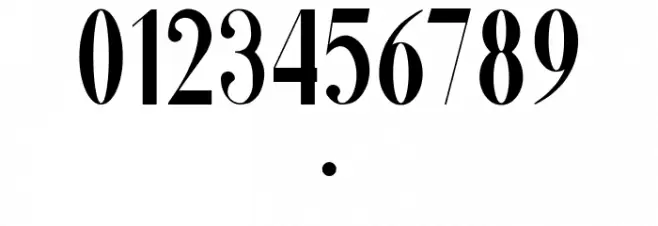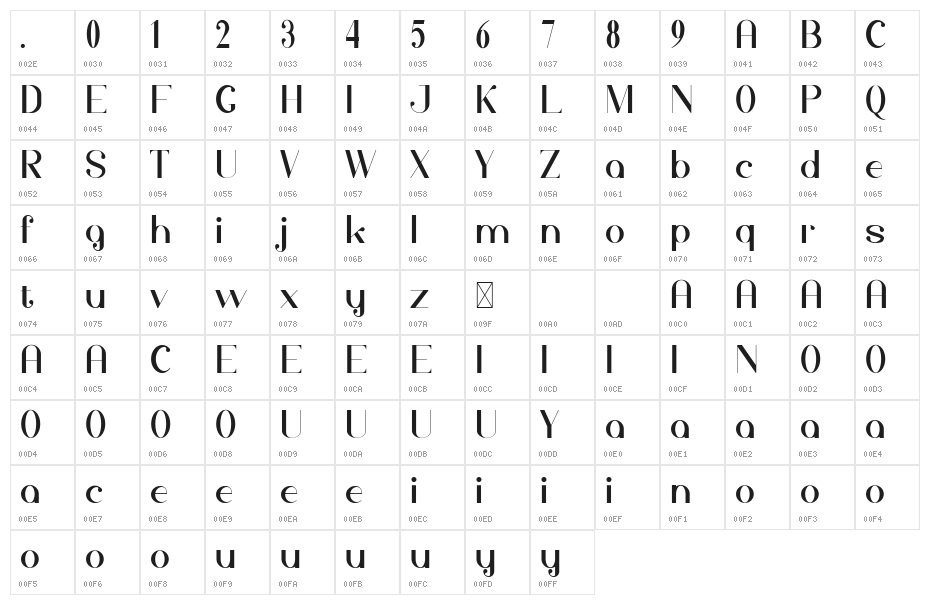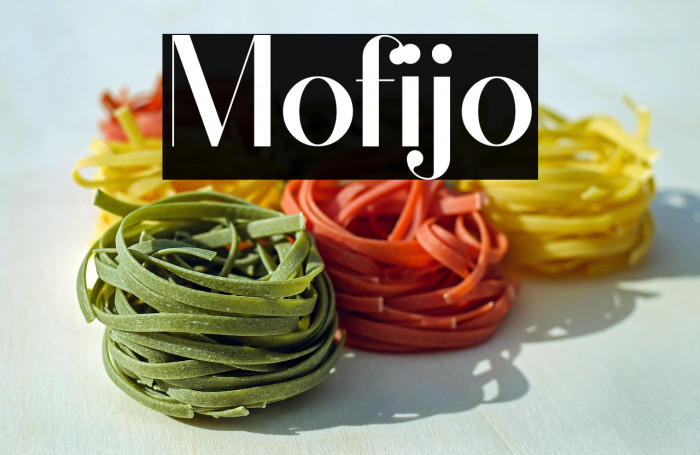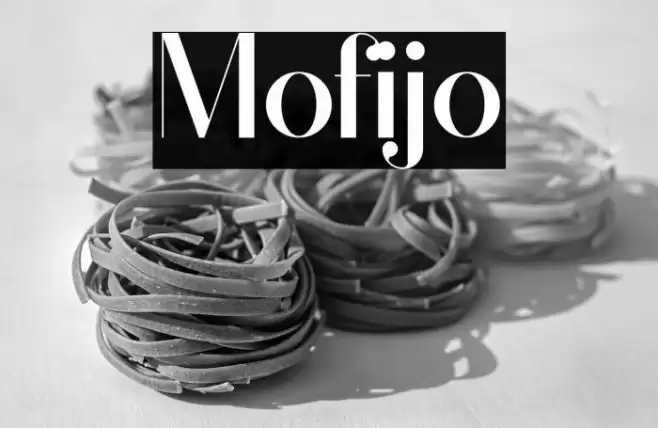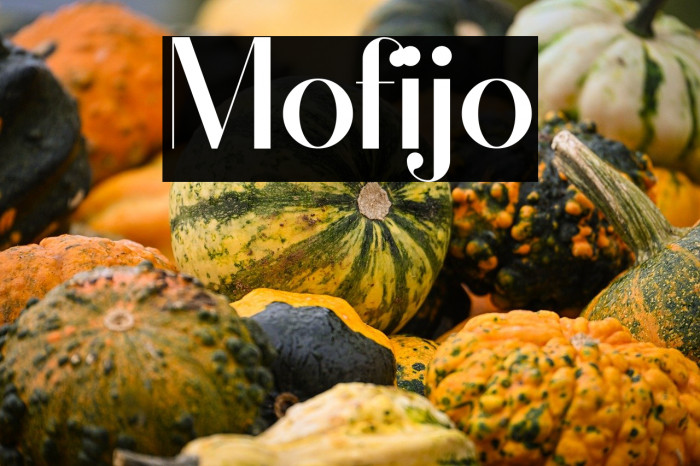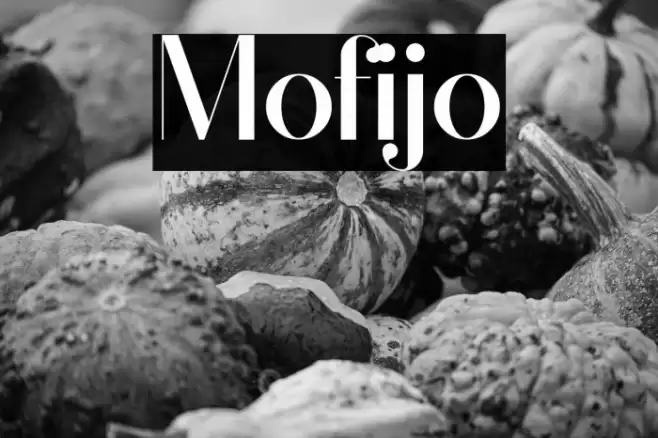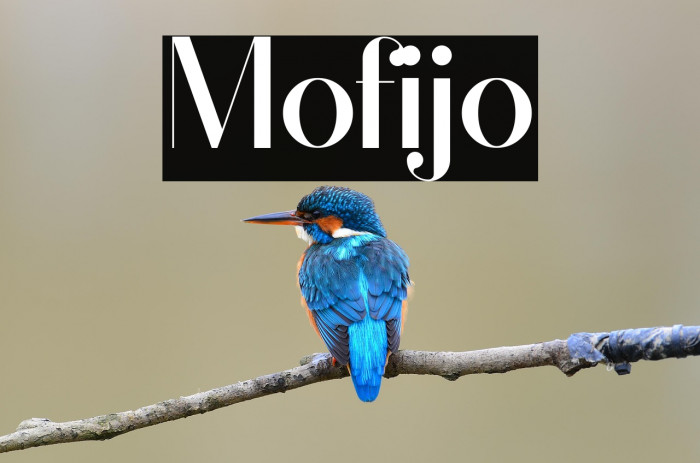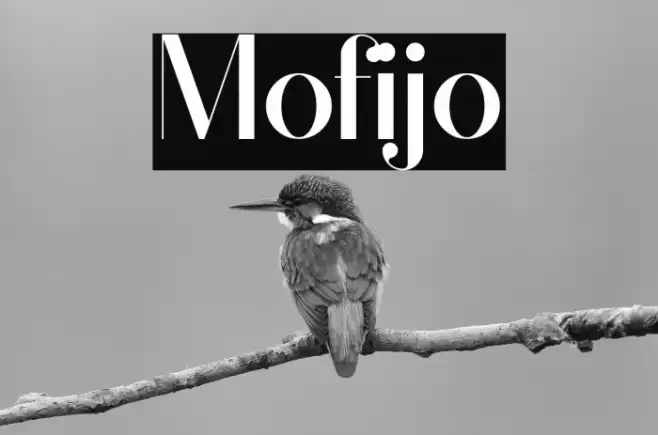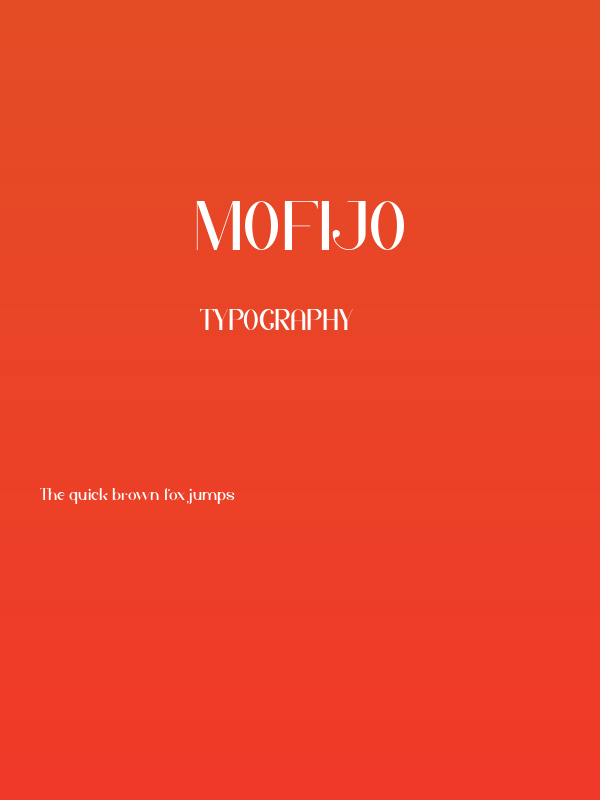
Mofijo Font
Mofijo Description
This font features a unique blend of modern and classic elements, characterized by its high contrast between thick and thin strokes. The uppercase letters exhibit a bold and elegant style with distinct curves and sharp angles, while the lowercase letters maintain a more fluid and graceful appearance. The numerals are designed with a similar high contrast, adding a touch of sophistication. The overall design is sleek and stylish, making it suitable for various creative applications.
| Use Case | Headlines, Logos, Editorial Design |
| Proposed Projects | Ideal for branding, editorial design, luxury packaging, and high-end fashion magazines. |